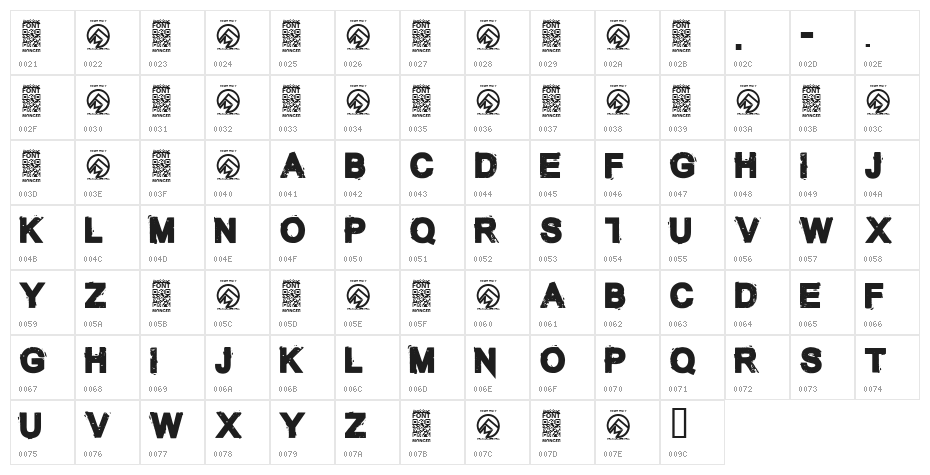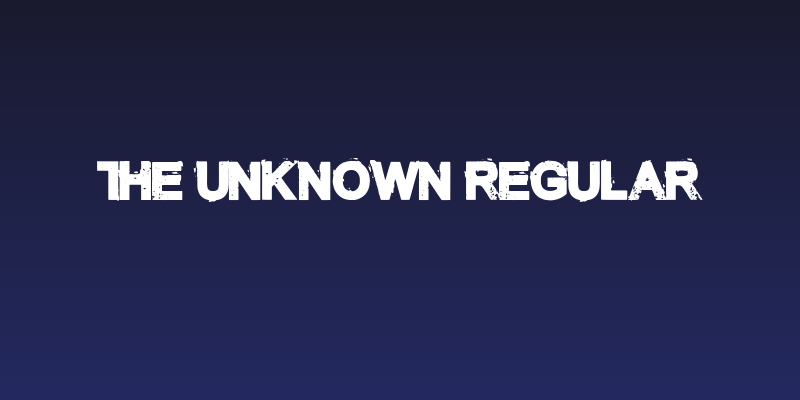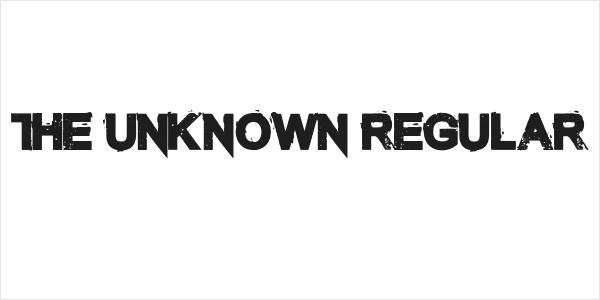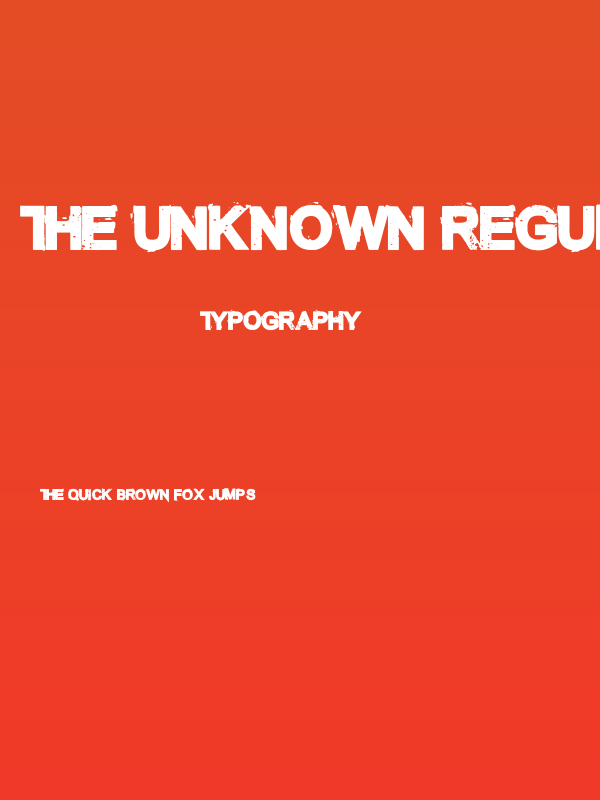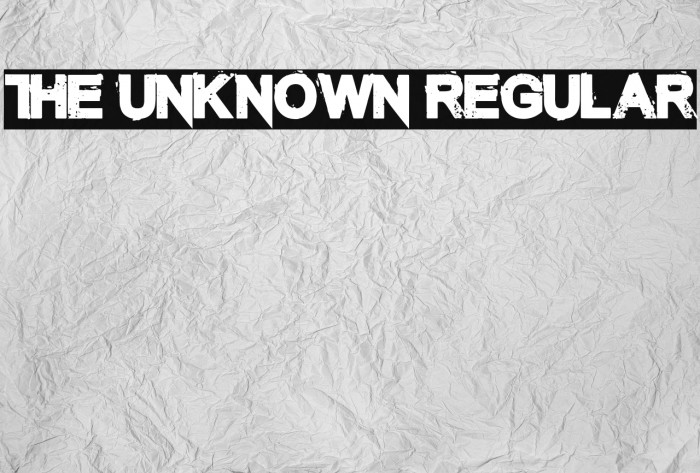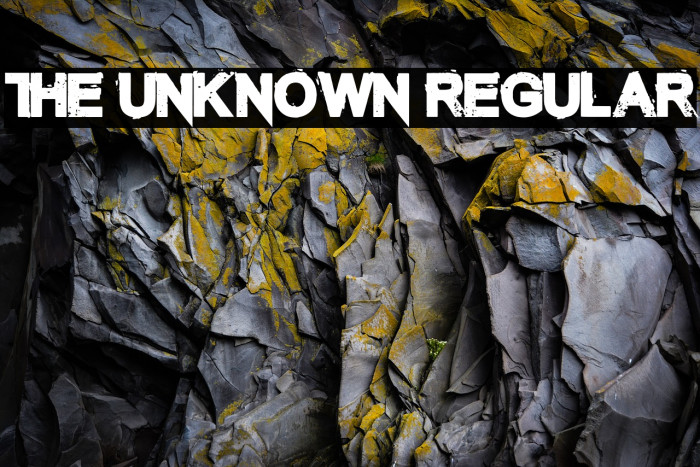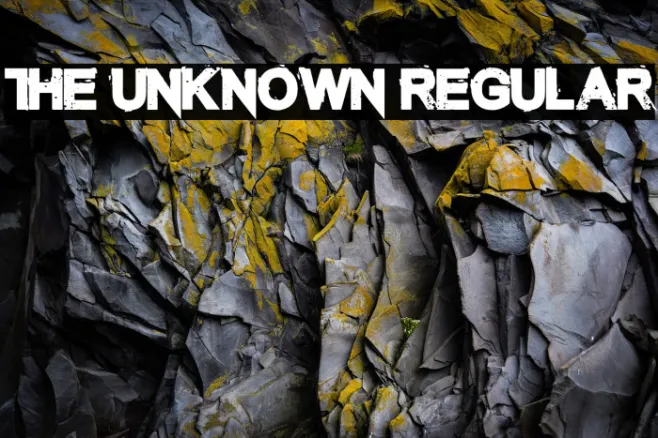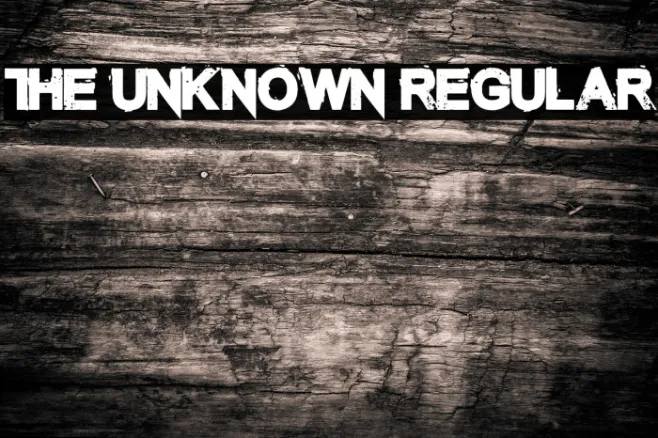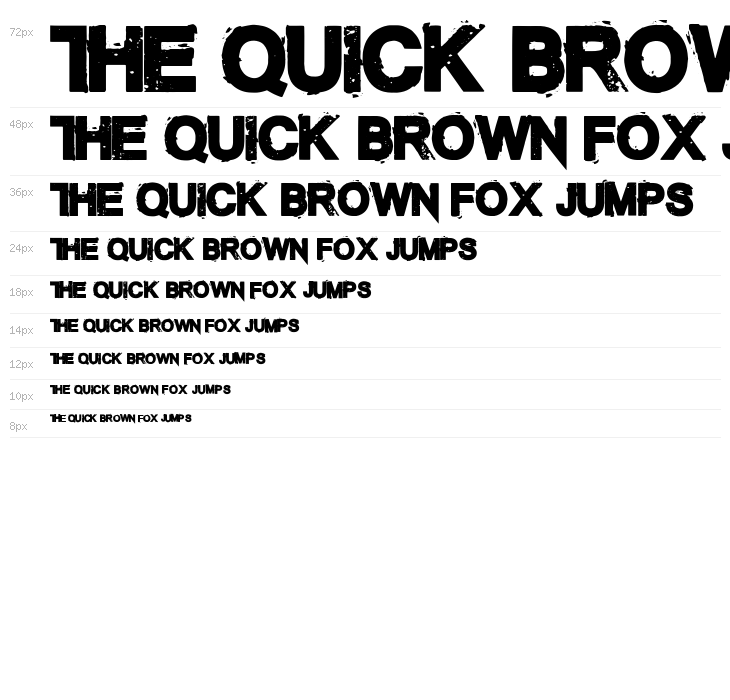
The Unknown Regular Font
The Unknown Regular Description
This font exhibits a bold and distressed style, characterized by its rough, textured edges that give it a worn, vintage appearance. The uppercase letters are prominent and impactful, making them suitable for attention-grabbing designs. The distressed effect adds a layer of complexity and visual interest, making each character appear unique. This style is reminiscent of grunge or industrial aesthetics, often used to convey a sense of ruggedness or authenticity. The font's boldness ensures readability even with the distressed texture, making it versatile for various design applications.
| Proposed Projects | Ideal for poster designs, album covers, branding for edgy or alternative products, and any project requiring a bold, vintage look. |